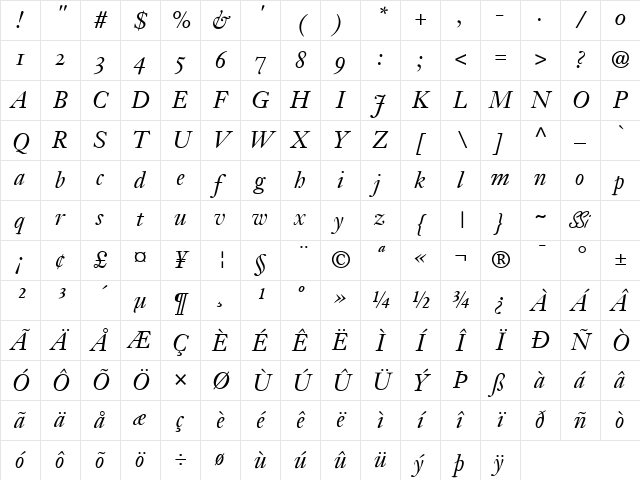
Complete Janson OldStyle SSi Italic Oldstyle Figures glyph index. Displaying only characters natively supported by Janson OldStyle SSi Italic Oldstyle Figures font.
Janson OldStyle SSi carries the refined structure of traditional serif typography, with bracketed terminals and considered proportions that communicate credibility and craft. The slanted form adds forward momentum and visual energy.